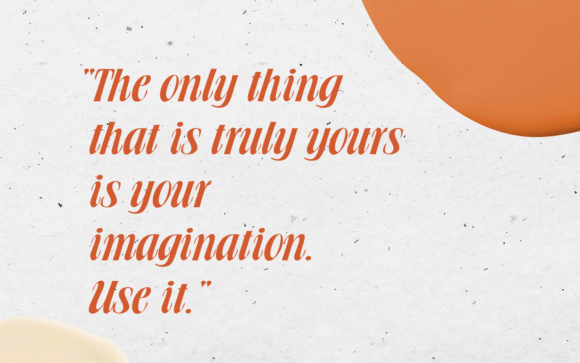
Introduction to Apexline Font
As a designer, have you ever been stuck trying to convey the perfect balance of elegance and power in a single visual element? The struggle is real, but what if you had a secret design resource that could elevate your creative project to the next level? Look no further than the stunning Apexline Font, a high-quality typeface that’s sure to captivate your audience.
Imagine being able to add a touch of sophistication to your magazine headlines or posters with a single, bold stroke. That’s exactly what the Apexline Font offers, thanks to its unique blend of thin, delicate strokes and thicker, more powerful lines. With its transparent background and sleek design, this font is perfect for designers who want to make a lasting impression without overwhelming their audience.
Whether you’re working on a high-end commercial project or a free download for a community of creatives, the Apexline Font is a valuable addition to any designer’s toolkit. Its versatility and style make it an essential resource for anyone looking to push the boundaries of their design work.
Key Features of Apexline Font
- High-quality design resource with a transparent background, perfect for creative projects
- Unique characteristics: modern, clean, and minimalist design, ideal for branding, logos, and typography-based projects
- Apexline Font is a versatile design resource, suitable for a wide range of creative projects, from print to digital media
Honest Review: Apexline Font
As a designer, I’m always on the lookout for high-quality design resources that can elevate my creative projects. The Apexline Font is one such resource that caught my attention. Here’s my honest review of this fantastic font.
- High-quality typography: The Apexline Font boasts clean and elegant lines, making it perfect for a variety of design projects.
- Transparent background: The font’s transparent background makes it easy to use on both light and dark backgrounds.
- Limited font styles: The Apexline Font only comes in a few styles, which may limit its versatility for some designers.
- No bold or italic variants: The font doesn’t offer bold or italic variants, which can be a drawback for designers who need to emphasize certain text.
Overall, the Apexline Font is a great addition to any designer’s toolkit. Its high-quality typography and transparent background make it a versatile choice for creative projects. While it may have some limitations, it’s a great free download that’s definitely worth checking out.
Tips for Getting the Most Out of Apexline Font
Apexline Font is a versatile design resource that can be used in a variety of creative projects. To get the most out of it, consider experimenting with different font sizes, colors, and styles. You can also use the font in conjunction with other design elements, such as images or graphics, to create a unique and eye-catching design.
Apexline Font is commonly used in a variety of creative projects, including brochures, flyers, business cards, and website headers. It’s a great choice for designers who need a high-quality font that can add a professional touch to their designs.
Yes, the Apexline Font has a transparent background, making it easy to use with any background image or color. This feature is especially useful for designers who want to create a seamless and professional-looking design.
Q: Is the Apexline Font high quality and suitable for professional design projects?
Yes, the Apexline Font is a high-quality design resource that’s suitable for professional design projects. It’s carefully crafted to ensure that it’s clear, legible, and visually appealing, making it an excellent choice for any creative project.